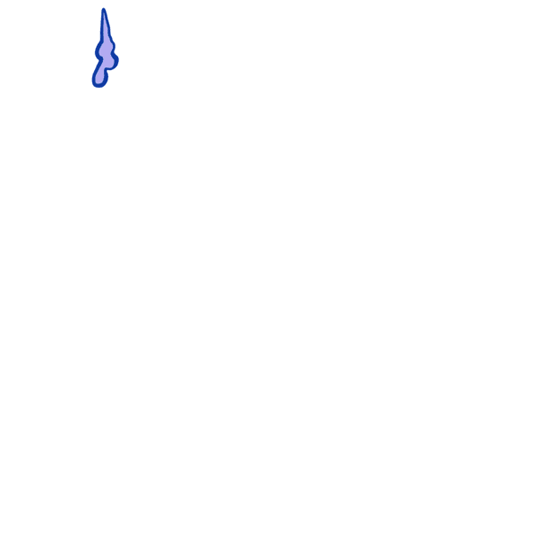
Font of the day: Rub My Soap
Every day we showcase the best fonts on the web. Today it's Rub My Soap by Anton Bohlin, which is free to download.
Rub My Soap by Anton Bohlin
Rub My Soap is a free animated font, created by Anton Bohlin. A cel animation, Rub My Soap is distributed as a set of QuickTime files coupled with an After Effects project setup, as well as a set of animated GIFs.